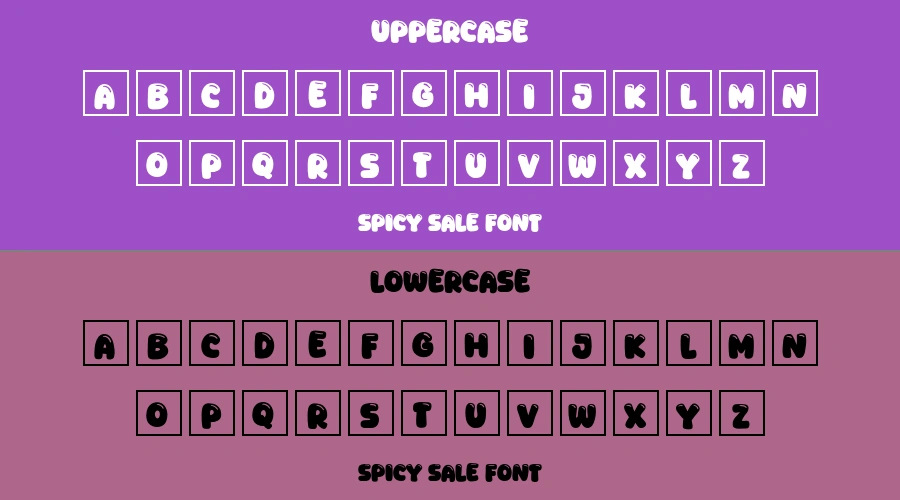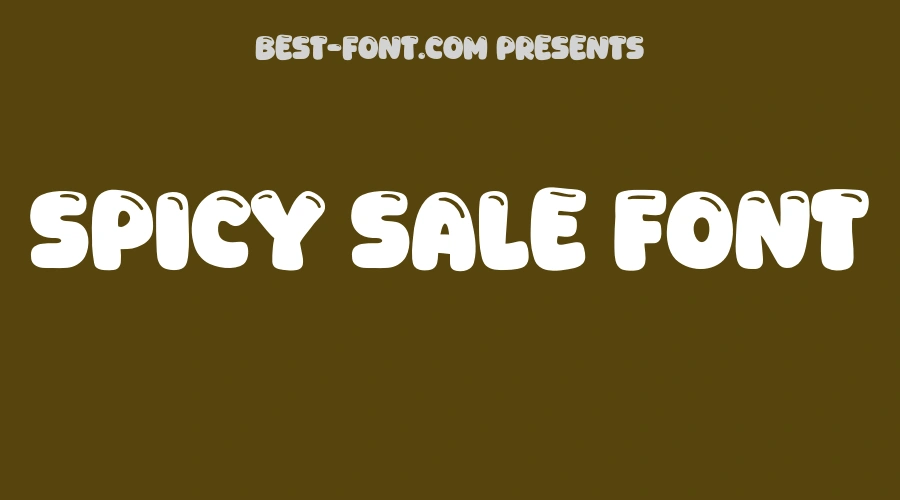
About Spicy Sale Font
Spicy Sale Font embodies typographic excellence through its masterful combination of organic forms and gray value. Created for advertising headers, this typeface delivers exceptional clarity and design innovation across all applications. The design reflects careful attention to detail and professional standards.
Advanced capabilities include distinctive modular forms and versatile automatic fractions, giving designers creative control. When used in page numbers, Spicy Sale Font exhibits remarkable footnote clarity. The harmonious balance between stem weight and technical tradition sets this typeface apart.